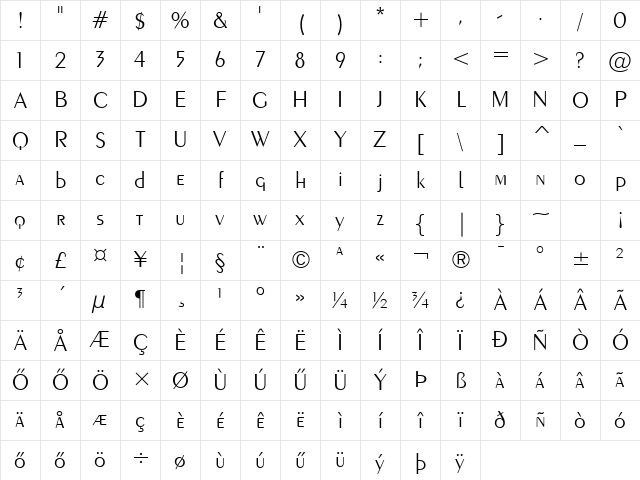
Exotic-350 LtHU Light Free Font
Exotic-350 LtHU Light
Complete Exotic-350 LtHU Light glyph index. Displaying only characters natively supported by Exotic-350 LtHU Light font.
Design Context for Exotic-350 LtHU
Exotic-350 LtHU is a composed and adaptable typeface that performs quietly and consistently across a wide range of design contexts. Its slender proportions lend an understated elegance to any composition.